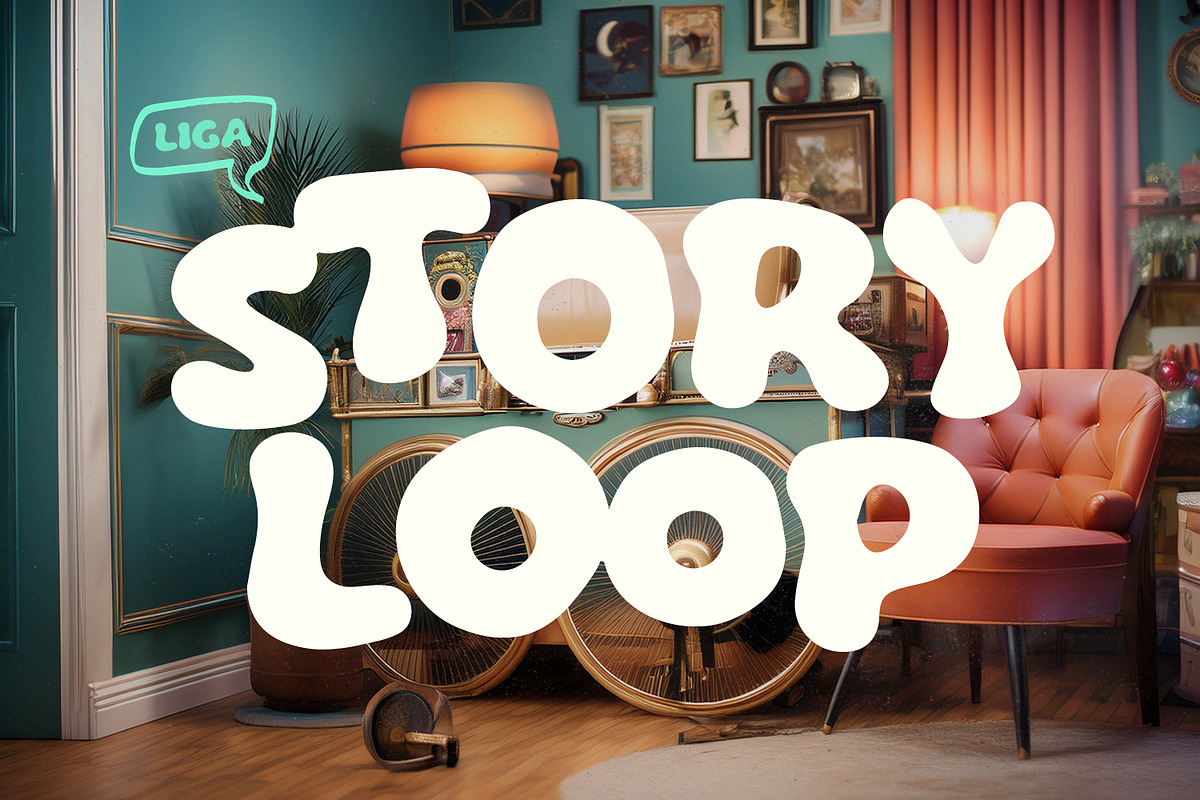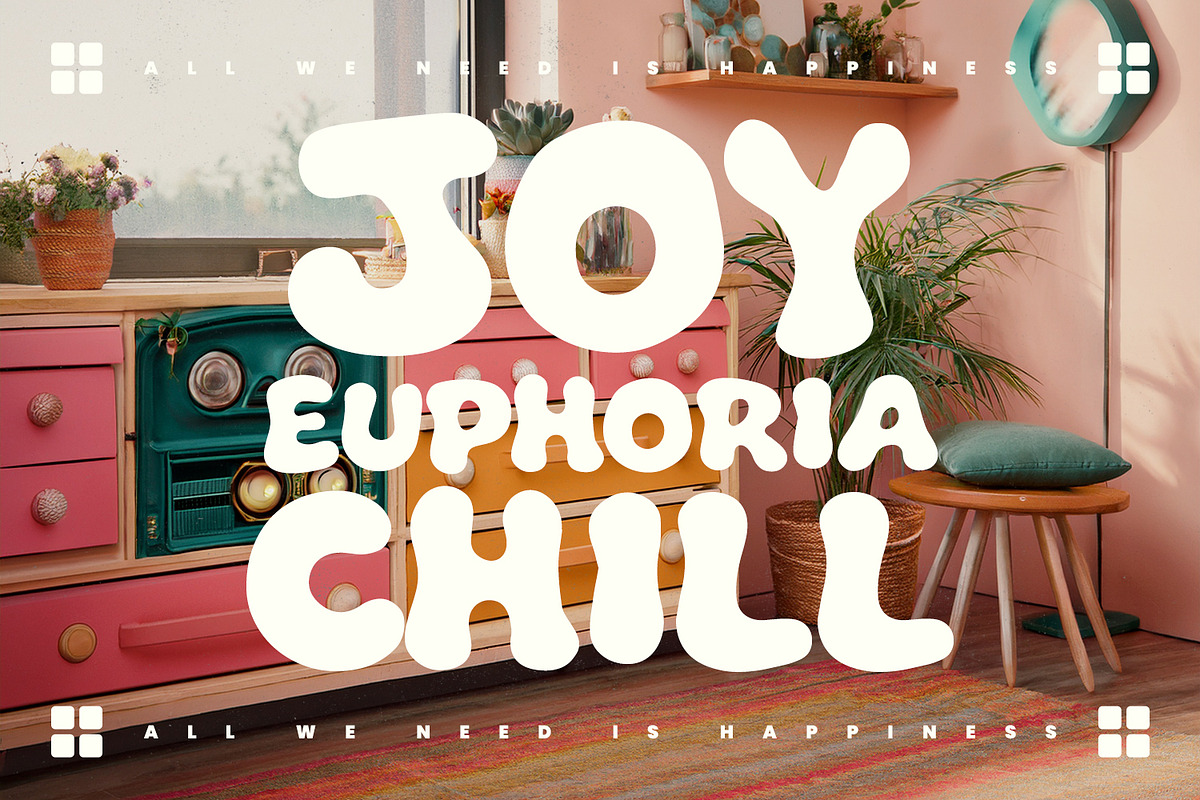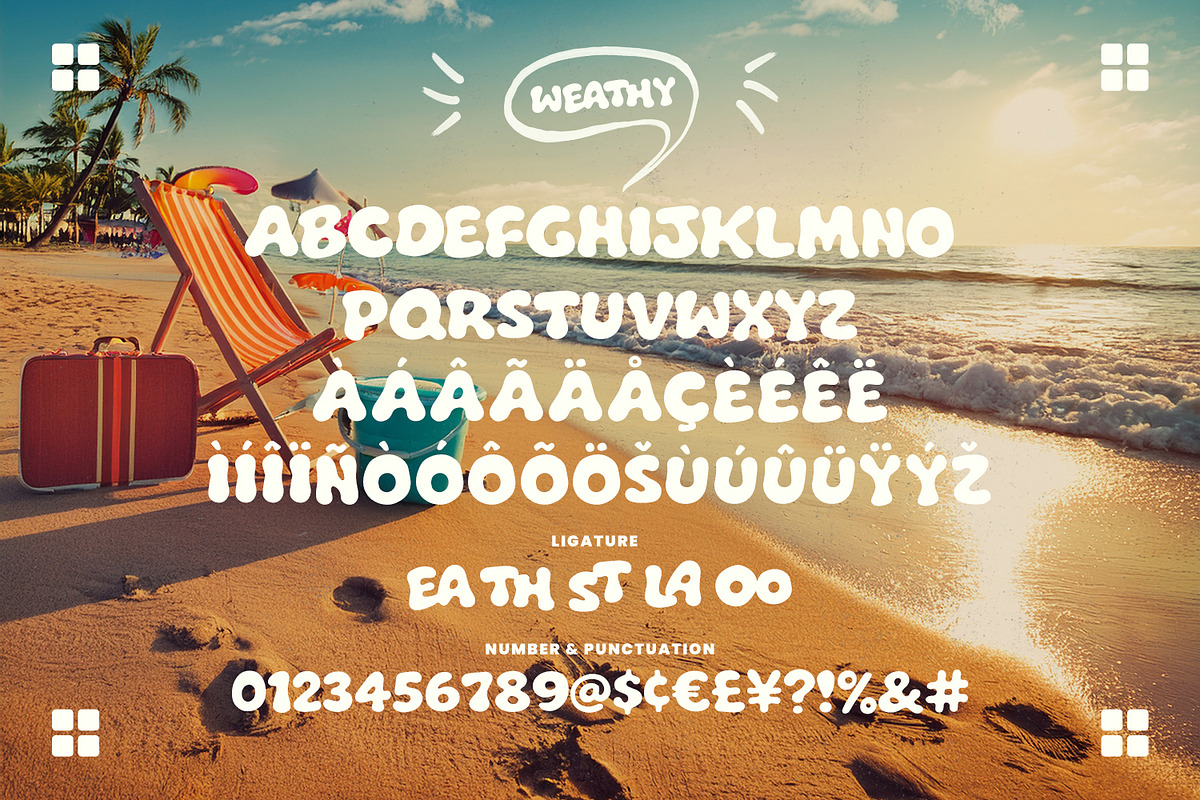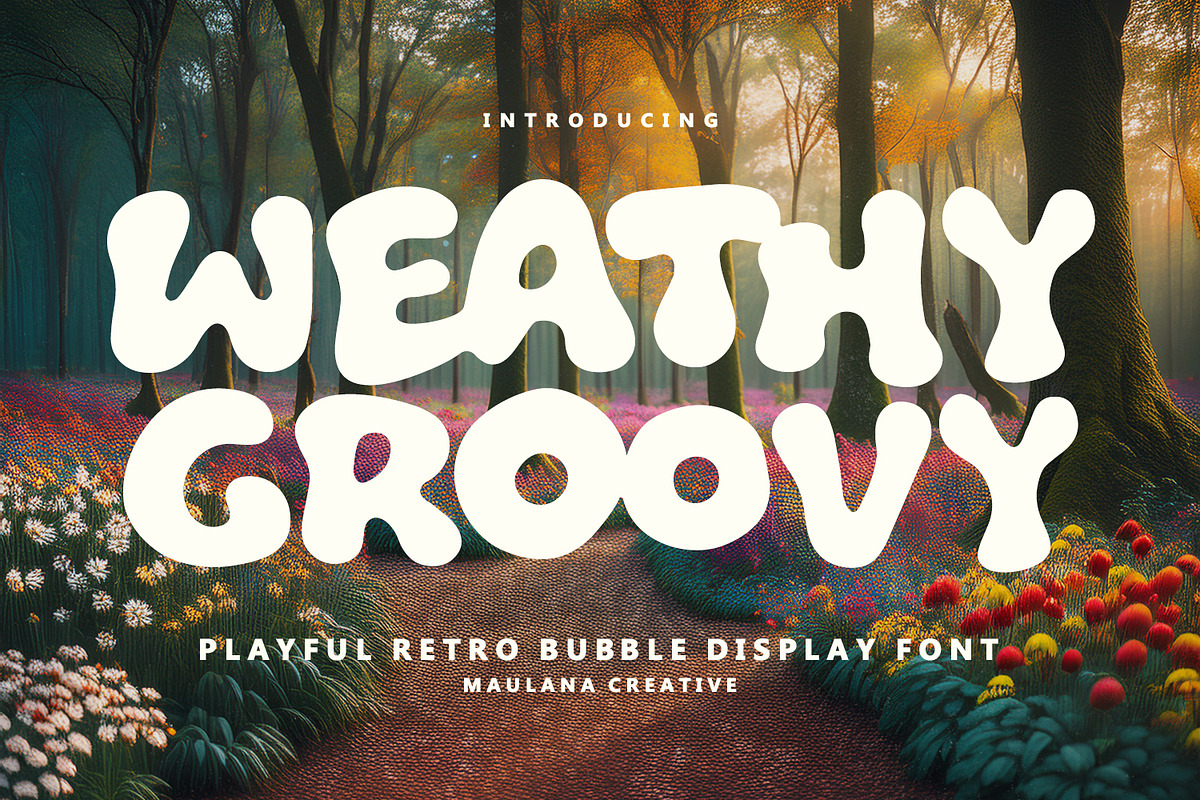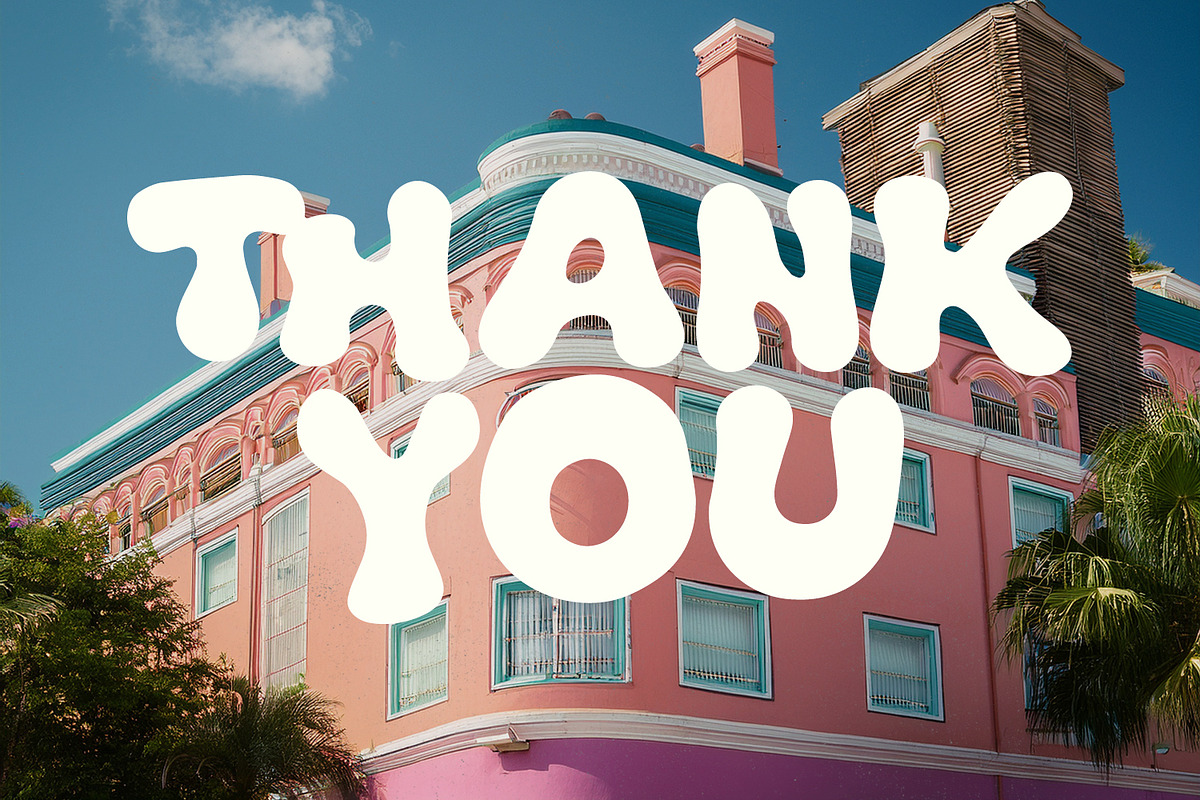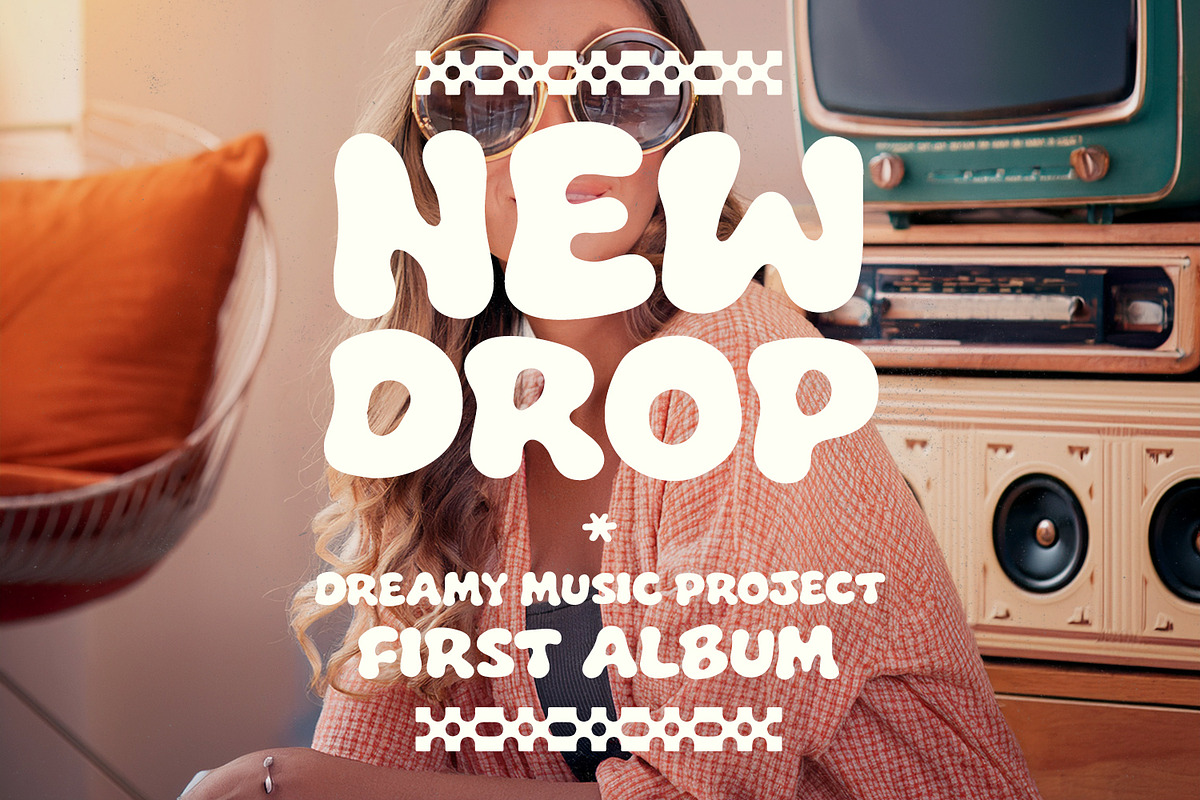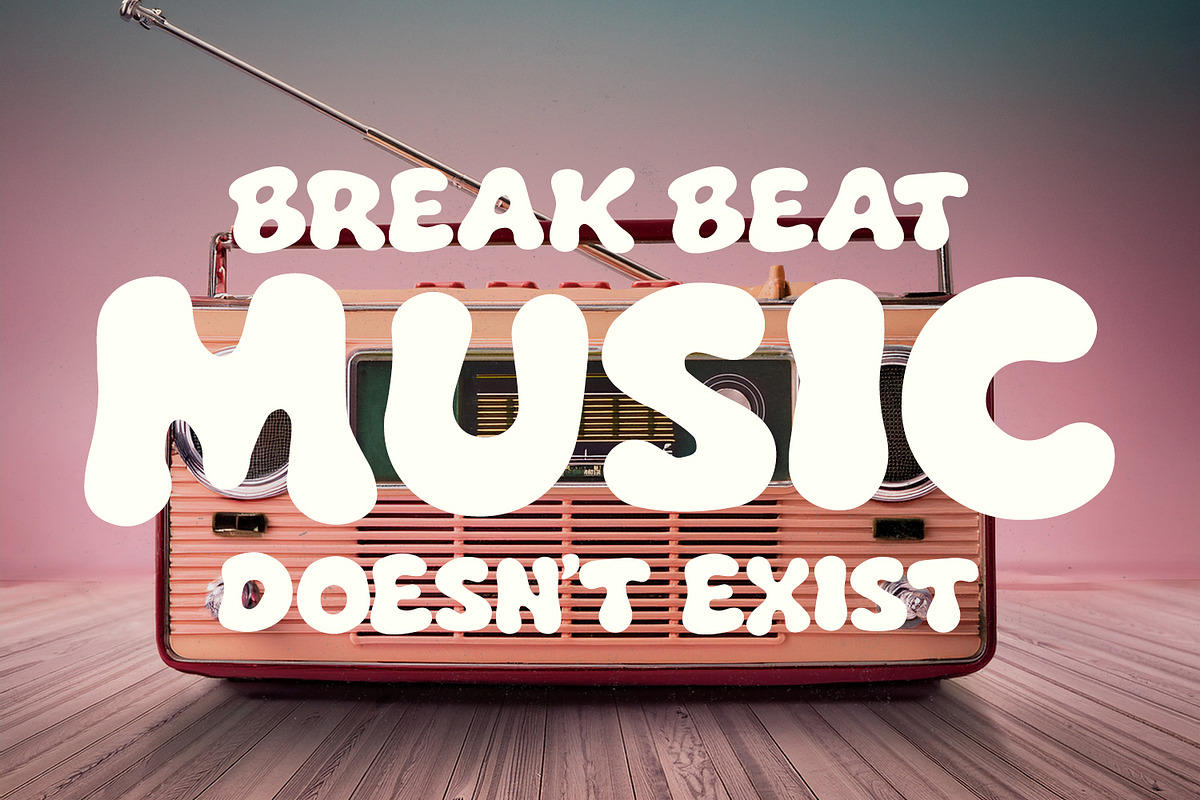
Weathy Groovy Playful Retro Bubble
Bring back the vibrant energy of the 70s with Weathy Groovy, a playful bubble display font designed to add a touch of nostalgia and joy to any project. Featuring soft, rounded edges and a bouncy rhythm, this font captures the essence of retro flower power aesthetics with a modern, clean finish.
It comes packed with unique ligatures that allow the letters to flow together seamlessly, making it perfect for eye catching headlines, brand identities, and social media graphics. Whether you’re designing for a music festival, a children’s, or a vintage inspired line, Weathy Groovy provides that effortless, chill vibe that stands out in a crowd.